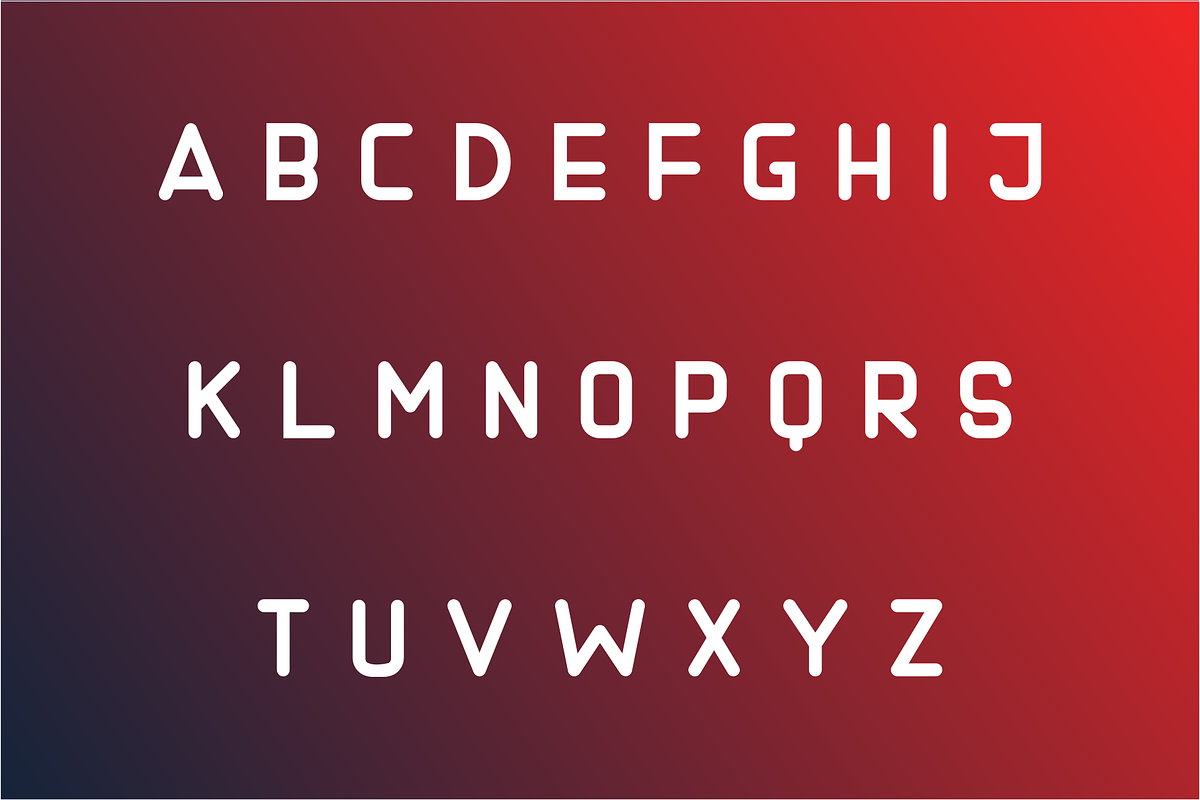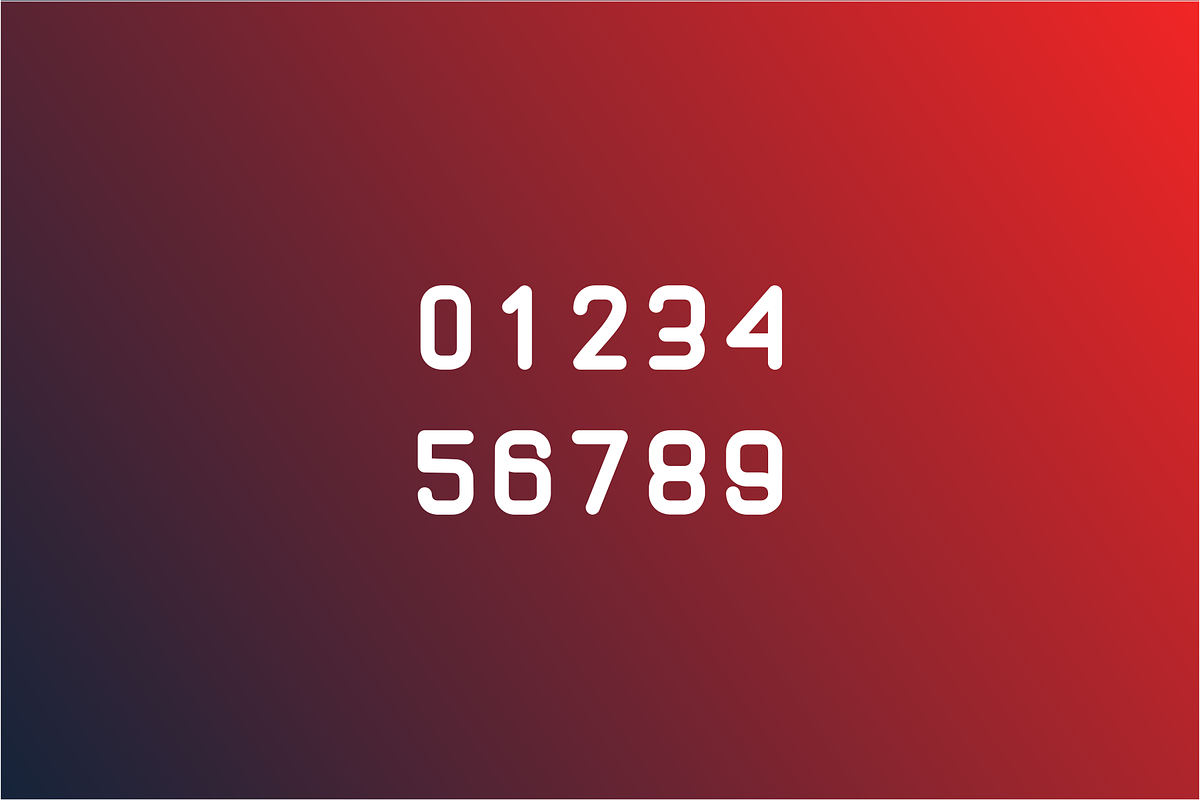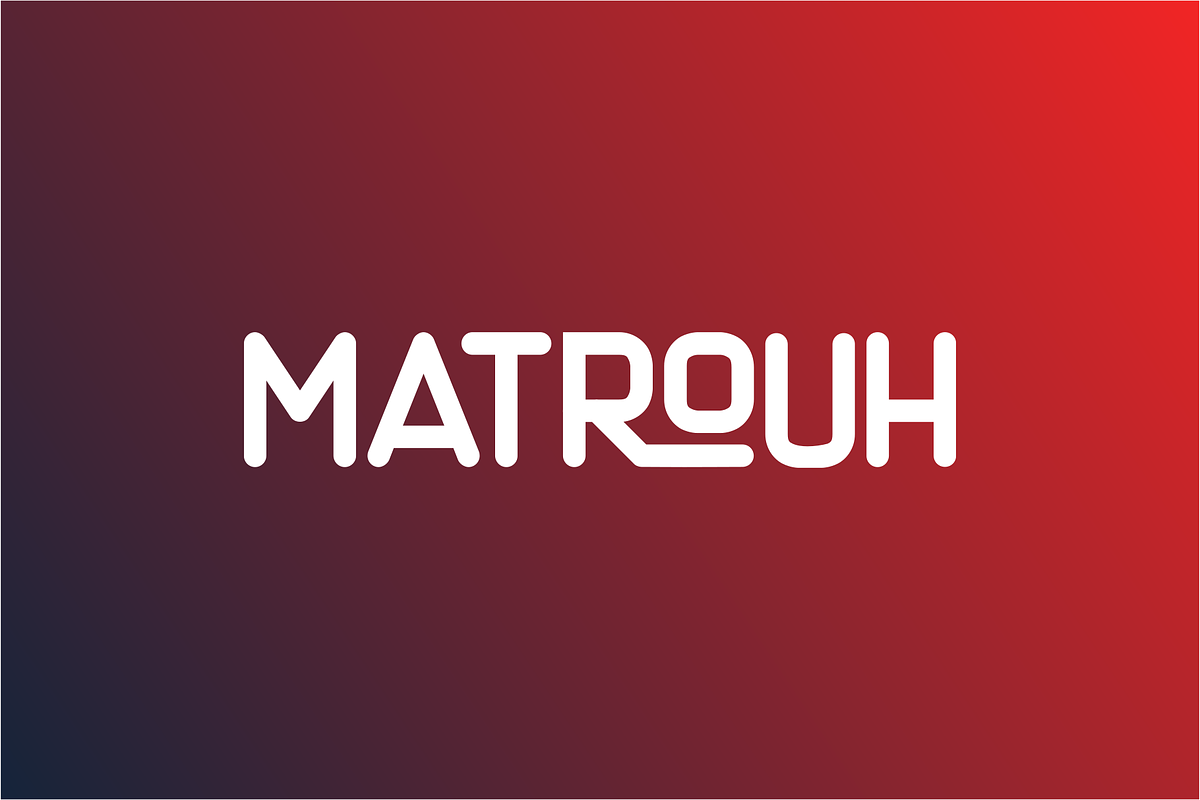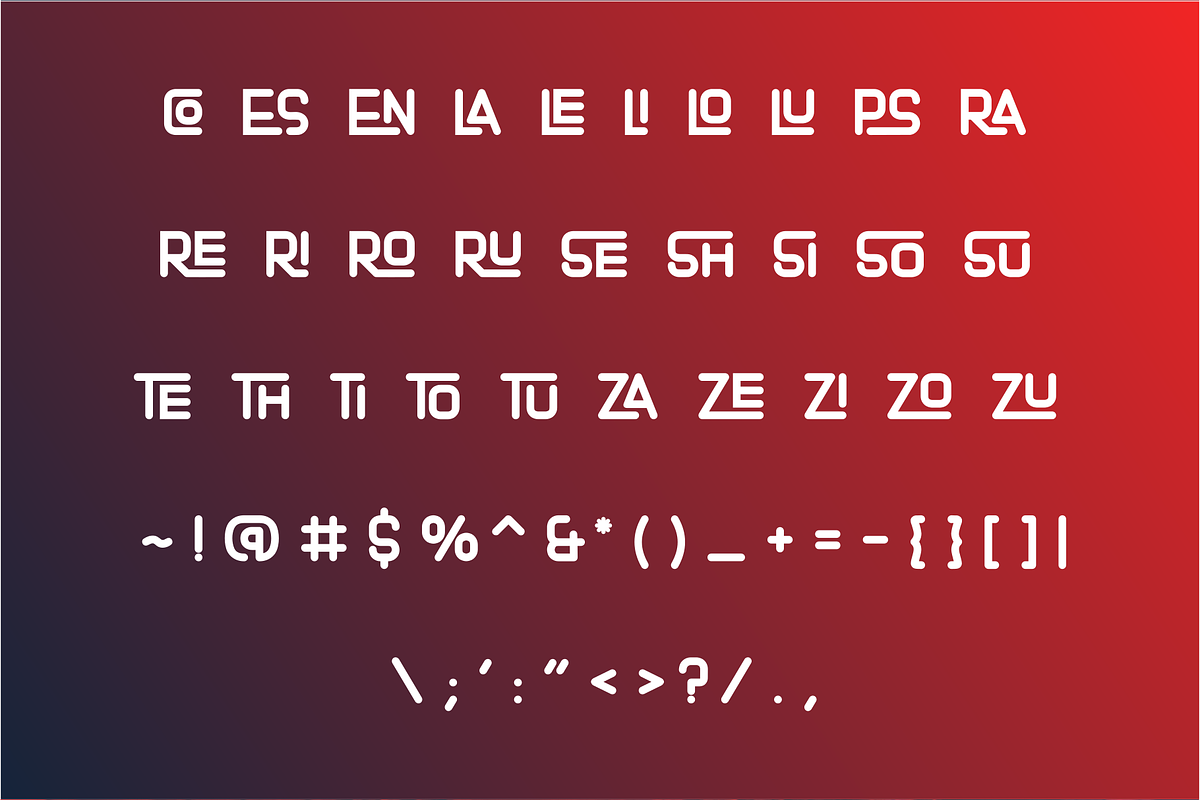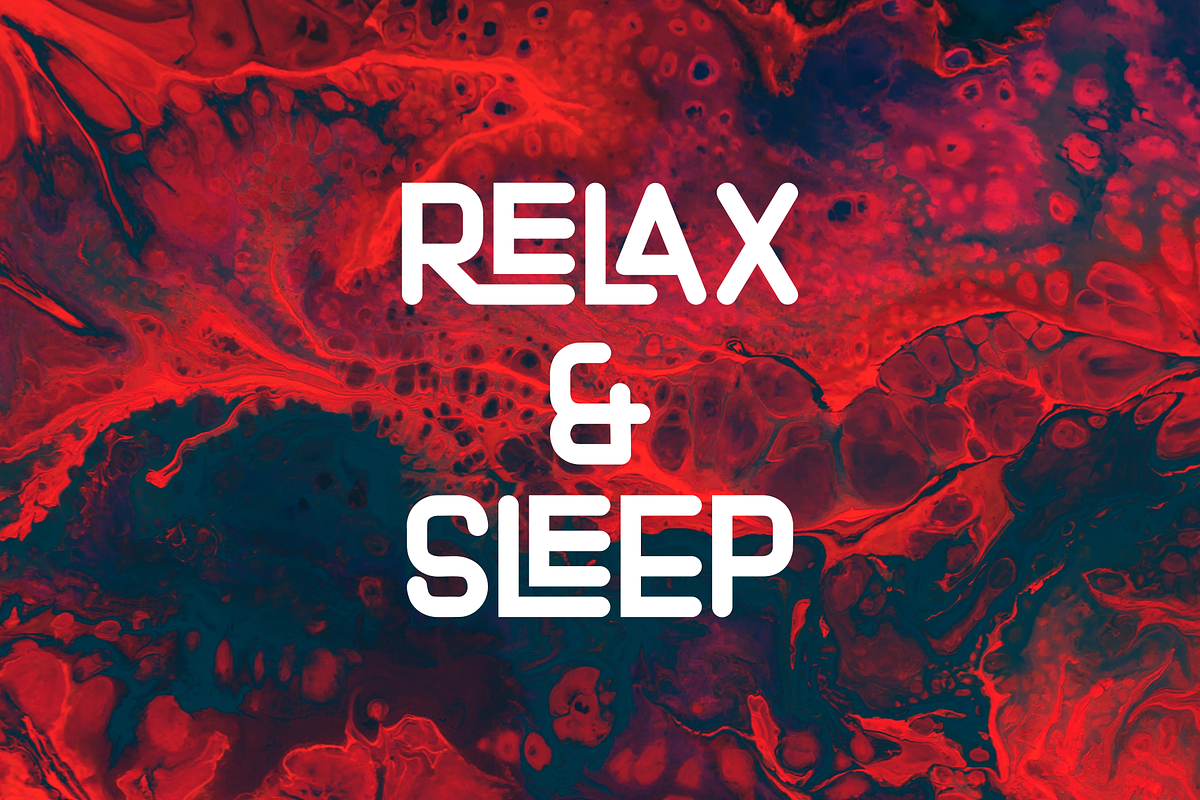
Matrouh Display Font
Matrouh is a fun display font. Create a unique design, every time you use it. Get inspired by its playful look & feel!
Matrouh Display Font by zuzulgo fits naturally into Branding, posters, packaging, typography.